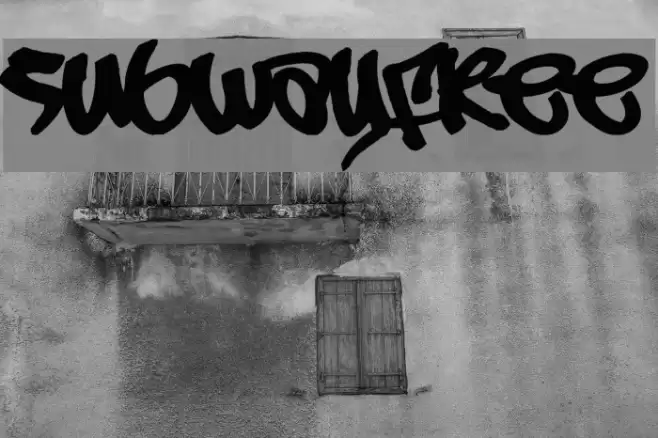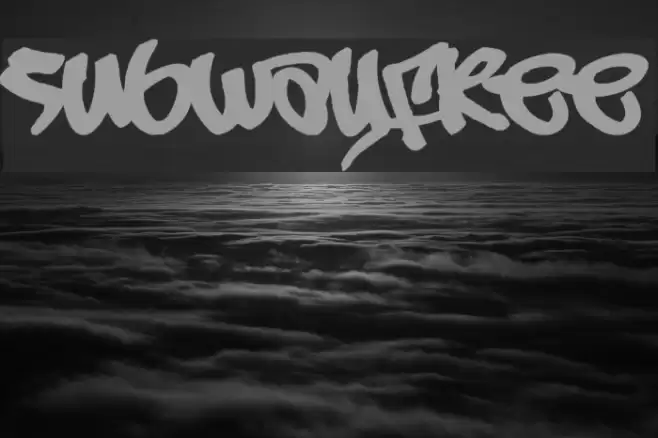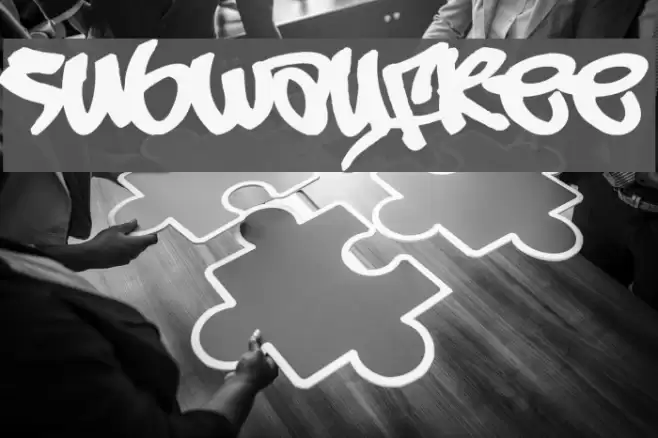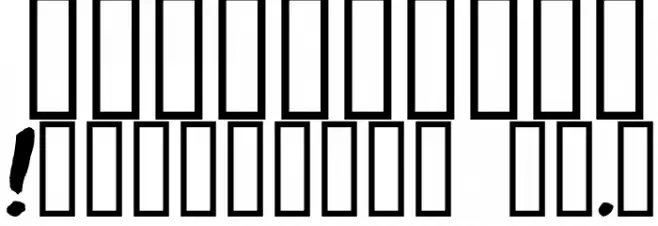
Subway_Free Font
Subway_Free Description
This font embodies a bold and expressive graffiti style, characterized by its dynamic and energetic strokes. The letters are crafted with a sense of movement and flair, reminiscent of street art and urban culture. The uppercase and lowercase letters maintain a consistent flow, with sharp angles and fluid curves that create a sense of rhythm and spontaneity. The font's design is both edgy and artistic, making it ideal for projects that require a strong visual impact. The characters are tightly spaced, enhancing the compact and cohesive appearance of the text. This font is perfect for creative projects that aim to capture the essence of urban life and street culture.
A bold, graffiti-inspired font with dynamic strokes and urban flair from Uncategorized fonts.
- Proposed Projects: Ideal for street art designs, urban-themed posters, music album covers, and edgy branding projects.
- Character Spacing: Tight
- Overall Style: Urban, Graffiti, Artistic
- Use Case: Logos, Posters, Album covers